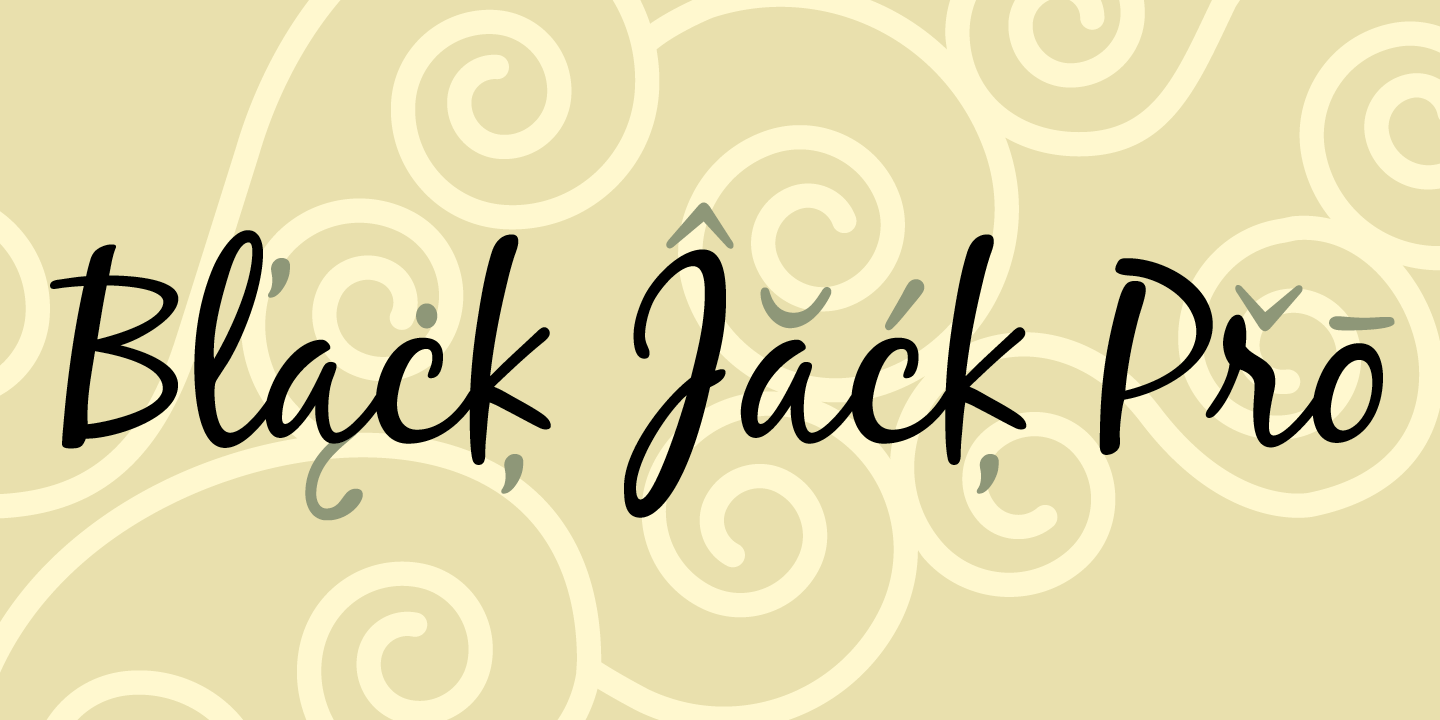
Black Jack Pro Font excels in various design applications including casino branding, gaming establishment logos, poker tournament materials, entertainment venue signage, bold advertising campaigns, high-stakes event posters, professional gaming communications, and dramatic headline designs. This commanding typeface adapts powerfully to both high-energy digital platforms and striking print materials, making it perfect for designers seeking gambling sophistication and professional gaming elegance in their visual communications.
Black Jack Pro Font generates excitement among design professionals due to its bold character and gaming-inspired styling that instantly conveys excitement and professional stakes. The font's commanding letterforms and casino proportions create an immediate sense of high-energy entertainment and gaming sophistication. Its professional personality makes it particularly appealing for brands wanting to communicate gaming excellence, entertainment value, and professional casino atmosphere in their visual identity.
The Black Jack Pro Font family encompasses multiple weights and styles including Regular, Bold, Light, Casino, and Condensed variations. Each family member maintains gaming design principles while offering distinct entertainment characteristics. The Light weight provides subtle gaming elegance for sophisticated applications, while the Casino version delivers maximum impact for high-stakes headlines and professional gaming brand statements.
Entertainment designers frequently choose Black Jack Pro Font Free Download for projects requiring both gaming authenticity and professional distinction. This typeface demonstrates remarkable effectiveness across entertainment industries including casinos, gaming venues, entertainment companies, and professional gaming organizations. Its bold character allows establishments to communicate gaming excitement while maintaining excellent readability and professional visual appeal that creates the perfect atmosphere for high-quality entertainment experiences.